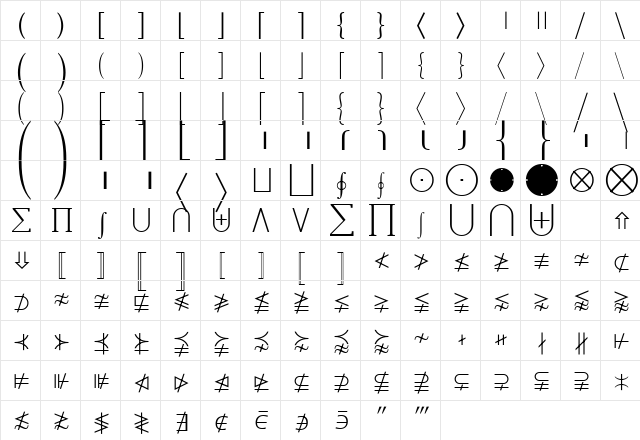
Math-Extensions A
Design Context for Math-Extensions Typeface
Math-Extensions takes a measured approach to typography — its balanced proportions and neutral character make it a reliable workhorse for both digital and print work.